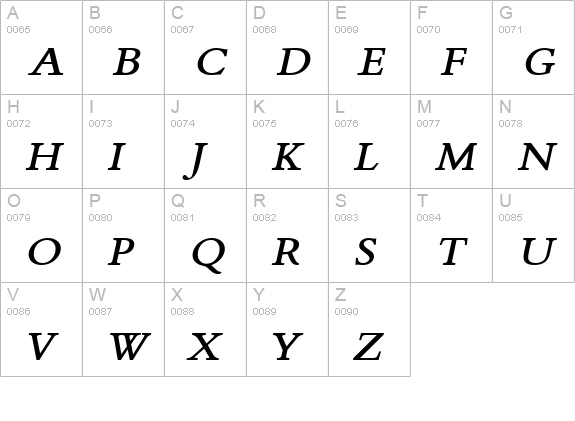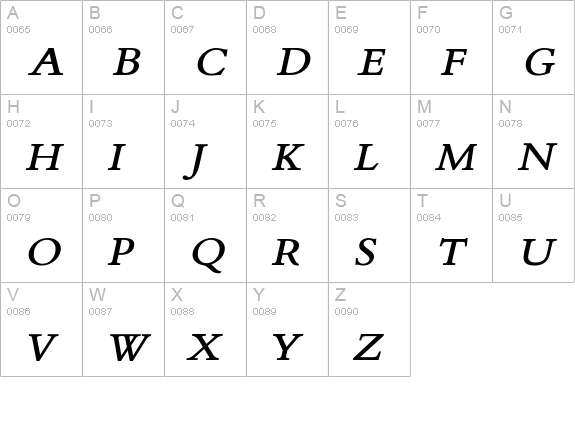
Nadine 2 Wide BoldItalic Font Details
Nadine 2 Wide BoldItalic is a distinctive, extended-width variant in the Nadine typeface family \xE2\x80\x94 well suited to design and typography projects.
Introducing Nadine 2 Wide BoldItalic font, a modern and stylish typeface that exudes a sense of sophistication and elegance. This font is perfect for creating eye-catching designs that demand attention and convey a sense of professionalism. With its bold and italicized features, Nadine 2 Wide BoldItalic adds a touch of flair to any project, making it stand out from the crowd. The best part? Nadine 2 Wide BoldItalic font is available for free download at FontsMarket.com. You can easily access this versatile font and incorporate it into your designs without any hassle. Whether you're working on branding materials, website designs, or any other creative project, Nadine 2 Wide BoldItalic font is sure to elevate your work and leave a lasting impression. Download this font today and take your designs to the next level!